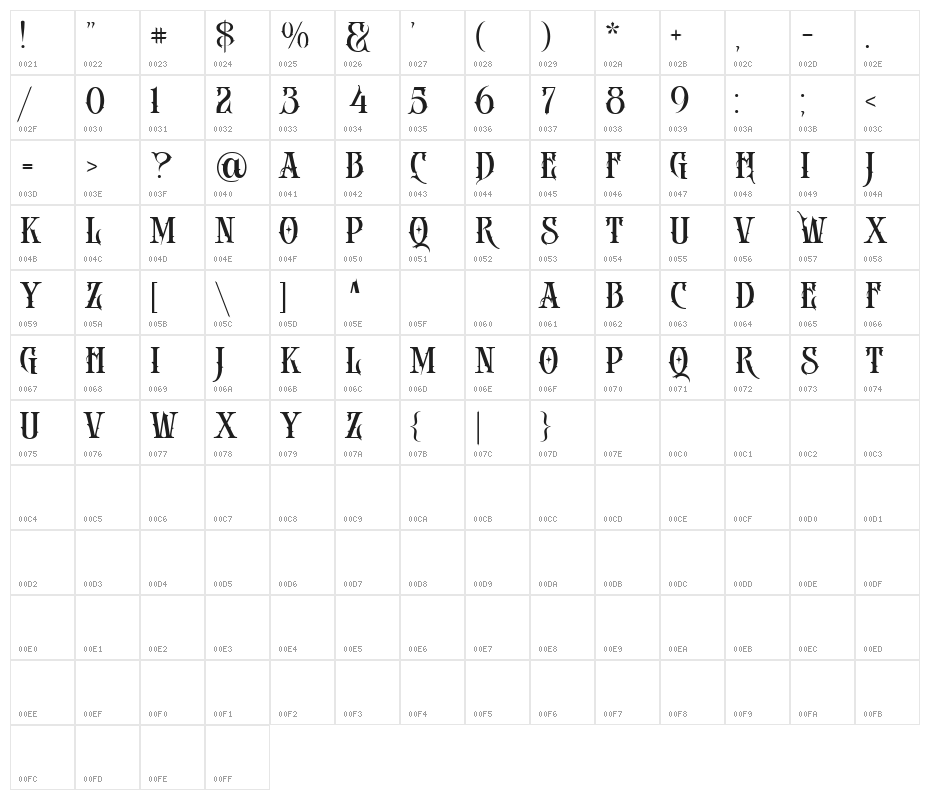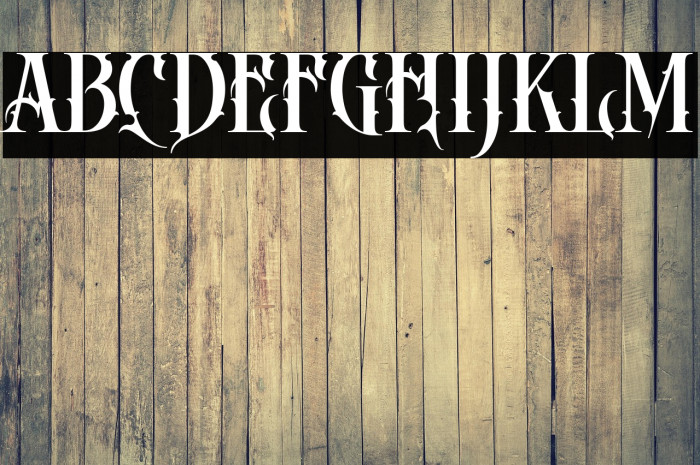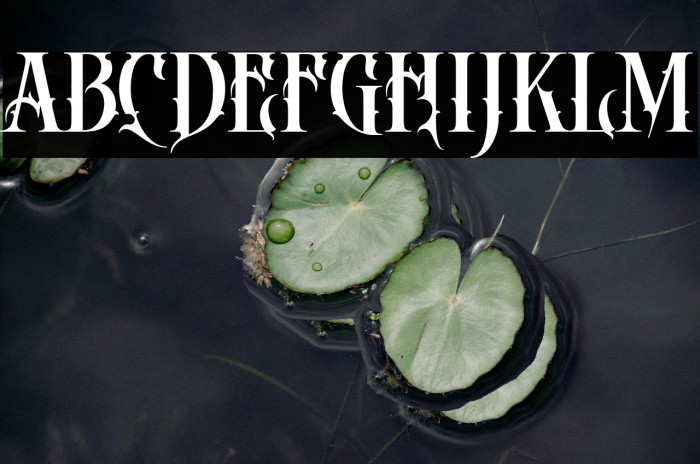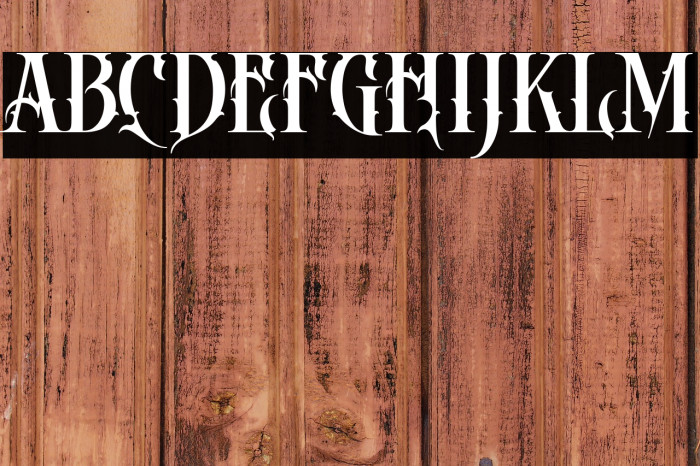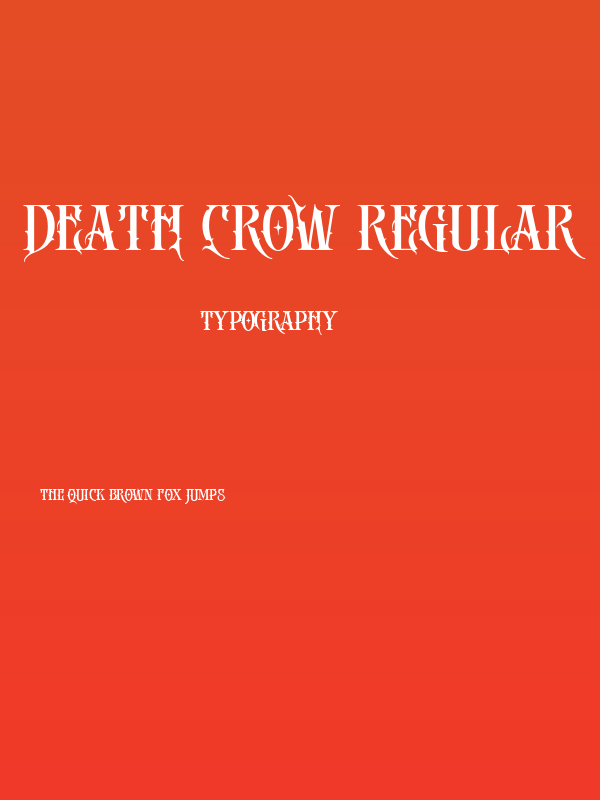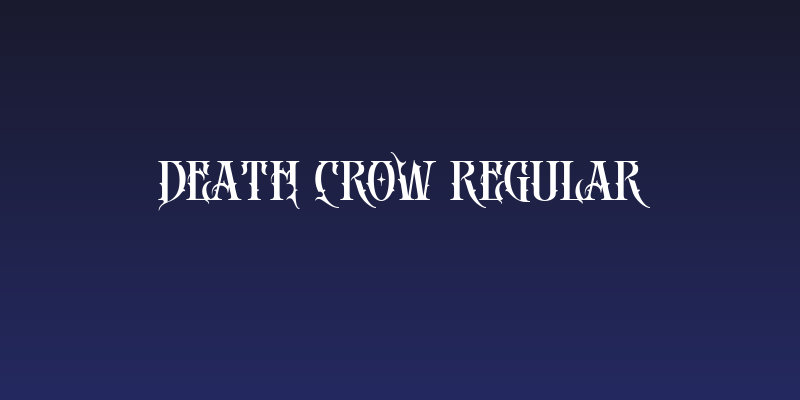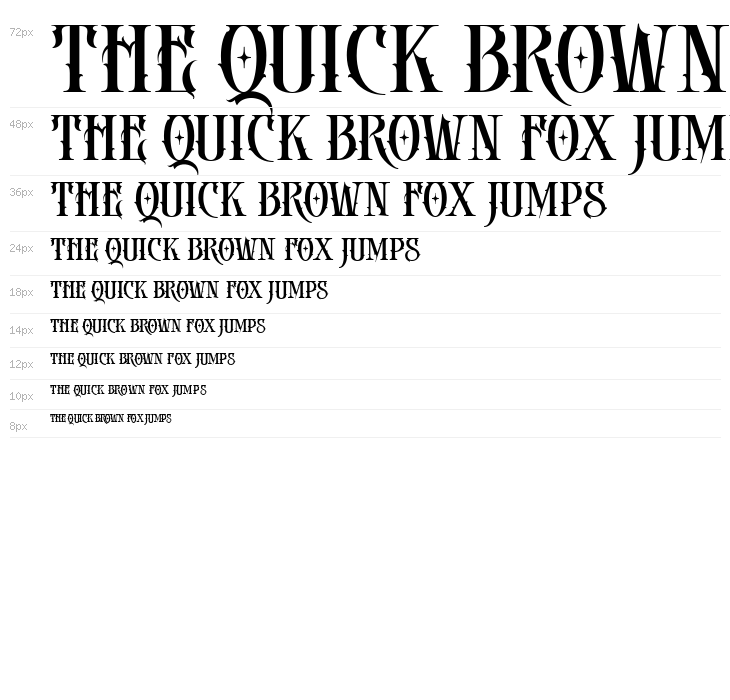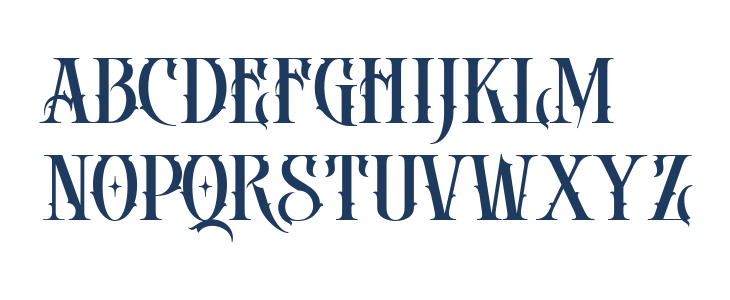
DEATH CROW Regular Font
DEATH CROW Regular Description
This font features a dramatic and gothic style, characterized by sharp, angular serifs and intricate detailing. The letters have a bold presence with high contrast between thick and thin strokes, giving them a striking and somewhat aggressive appearance. The uppercase and lowercase letters maintain a consistent style, with unique flourishes that add to the font's decorative nature. The numerals and special characters are equally ornate, fitting seamlessly with the overall aesthetic. This font is ideal for projects that require a bold, eye-catching design with a touch of elegance and mystery.
| Overall Style | Gothic, Decorative |
| Proposed Projects | Perfect for album covers, movie posters, gothic-themed events, or branding that requires a dramatic flair. |